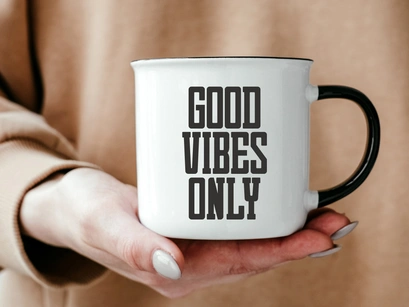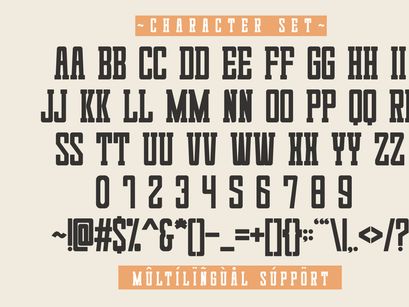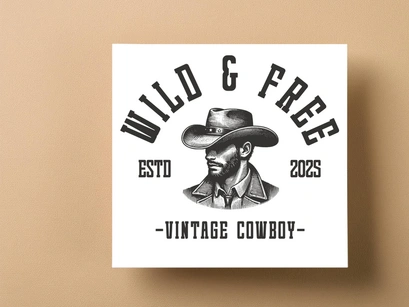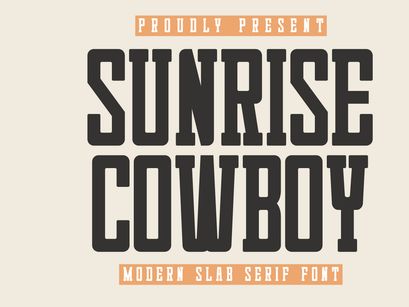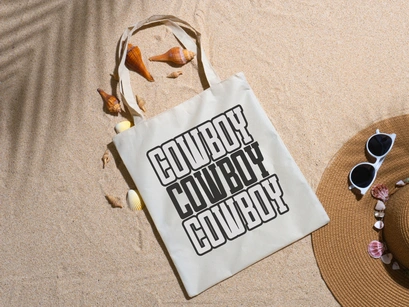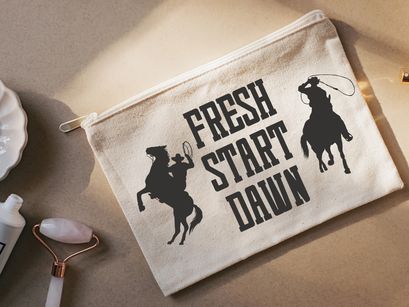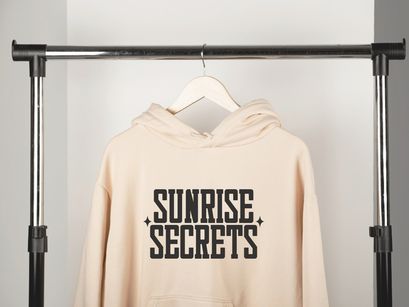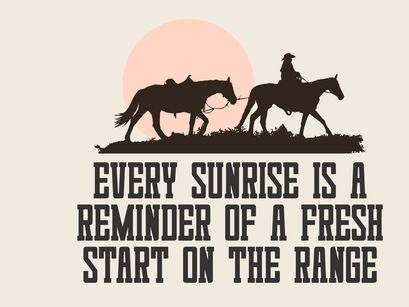
Sunrise Cowboy - Modern Slab Serif FontPremium
Sunrise Cowboy - Modern Slab Serif Font
Sunrise Cowboy
Sunrise Cowboy is a powerful and assertive Modern Slab Serif font that captures the rugged spirit of the Wild West. Its thick, blocky structure and clean, masculine forms make it the ideal display typeface for Western branding, outdoor logos, vintage posters, and athletic apparel. This all-caps font delivers a confident, bold, and instantly recognizable visual identity, perfect for high-impact titles and merchandise with a strong, adventurous feel.